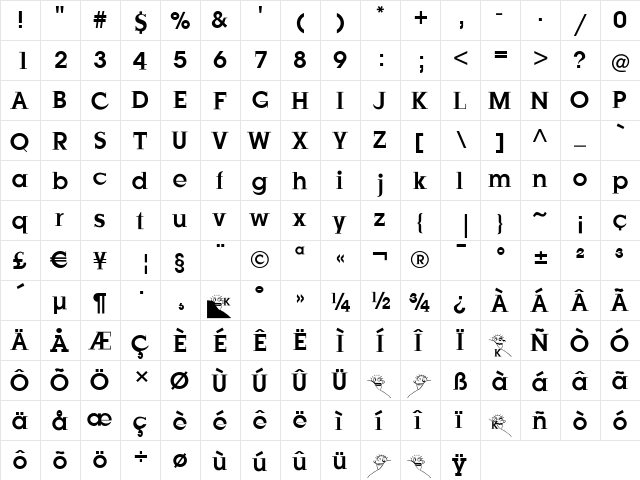
JustOldFashion Regular
Design Context for JustOldFashion Typeface
JustOldFashion offers clean, dependable letterforms without strong stylistic allegiance, making it a practical choice for designers who need flexibility.
Pro Tip: Pair JustOldFashion with a font of contrasting weight or personality to build a more expressive typographic hierarchy.